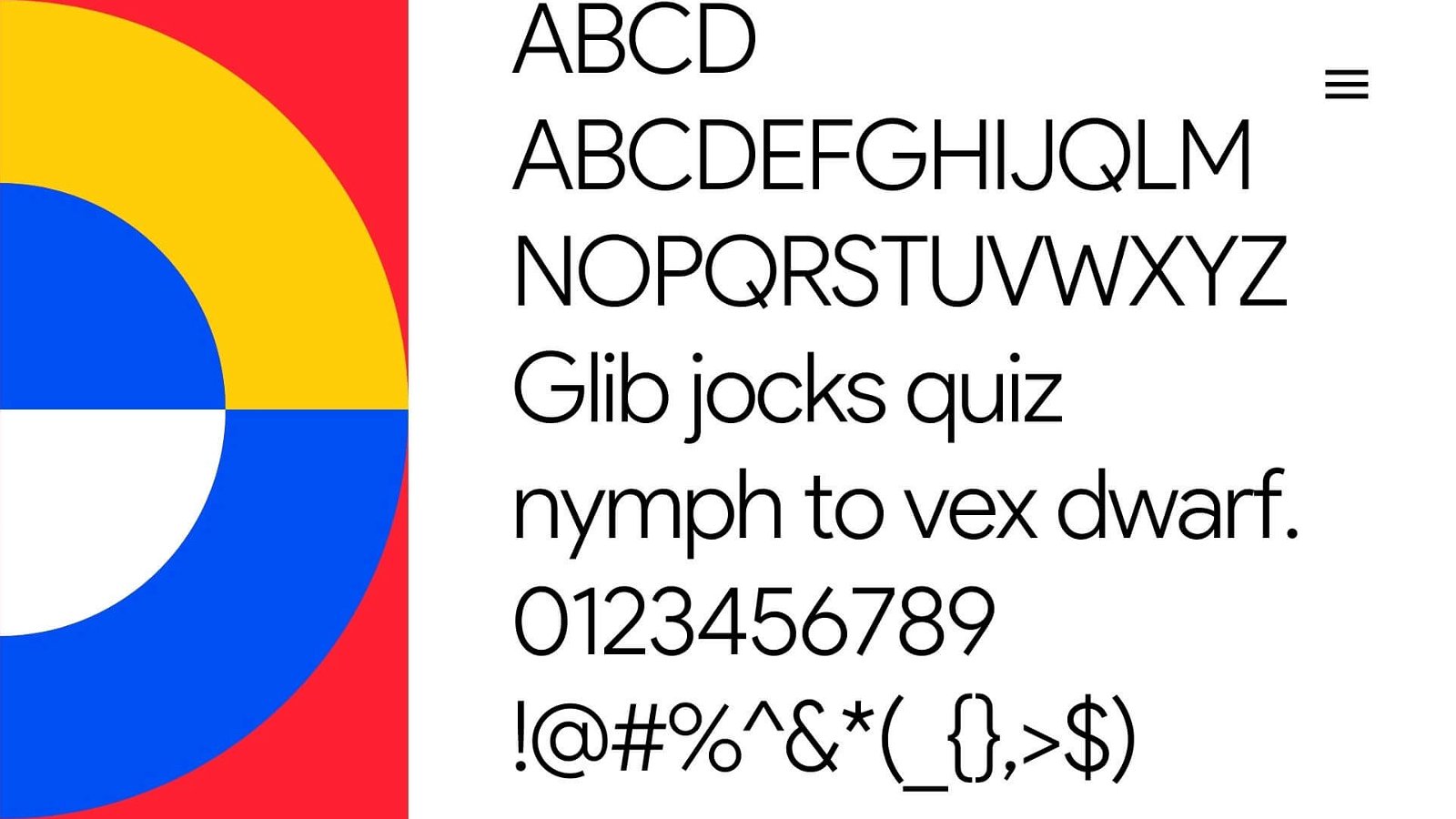
Product Sans Font - Simple, humble, and approachable, product sans was created from scratch to pair. Download the official google sans (product sans) font pack from google products.
Download the official google sans (product sans) font pack from google products. Simple, humble, and approachable, product sans was created from scratch to pair.
Simple, humble, and approachable, product sans was created from scratch to pair. Download the official google sans (product sans) font pack from google products.
Download the official google sans (product sans) font pack from google products. Simple, humble, and approachable, product sans was created from scratch to pair.
Simple, humble, and approachable, product sans was created from scratch to pair. Download the official google sans (product sans) font pack from google products.
Download the official google sans (product sans) font pack from google products. Simple, humble, and approachable, product sans was created from scratch to pair.
Simple, humble, and approachable, product sans was created from scratch to pair.